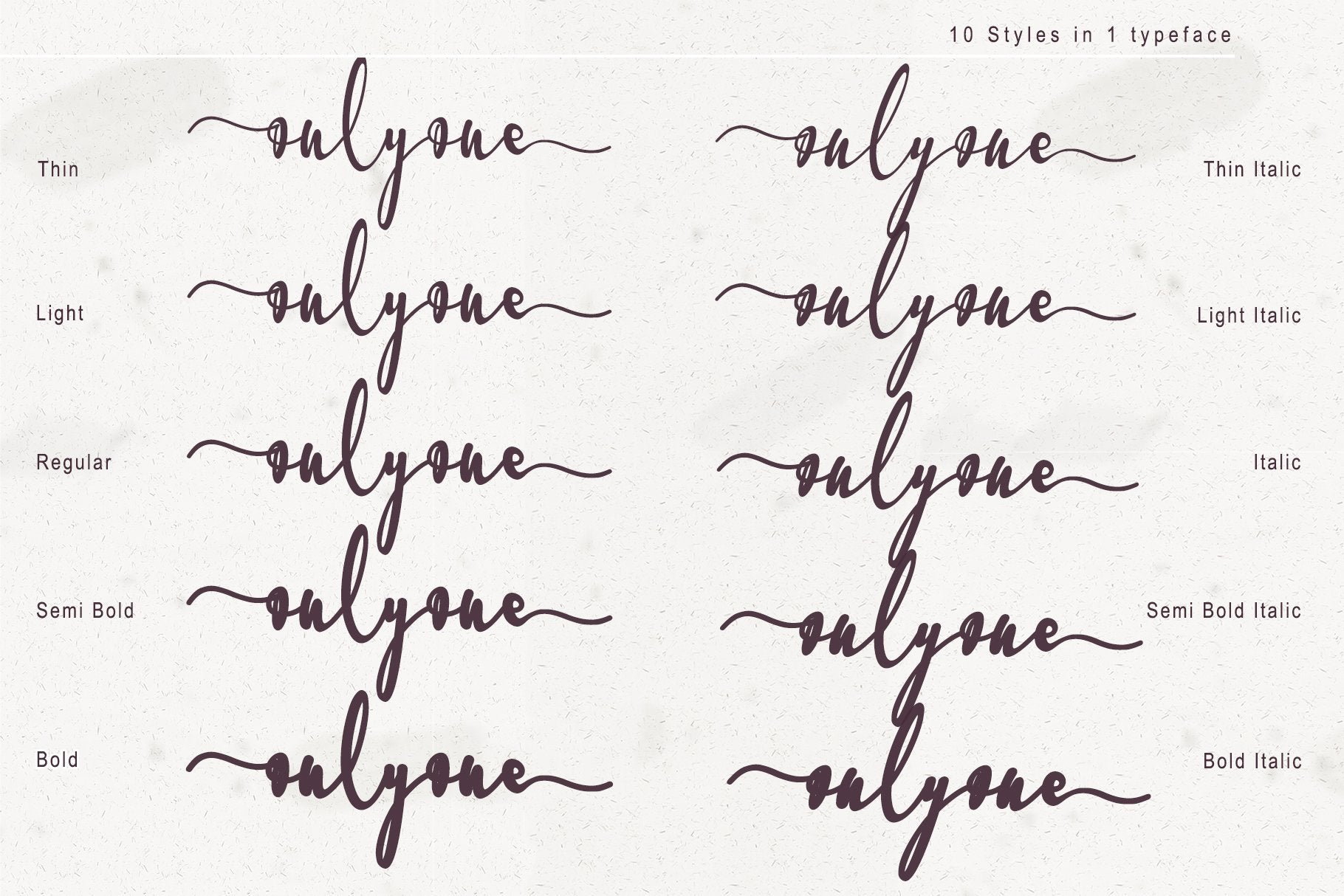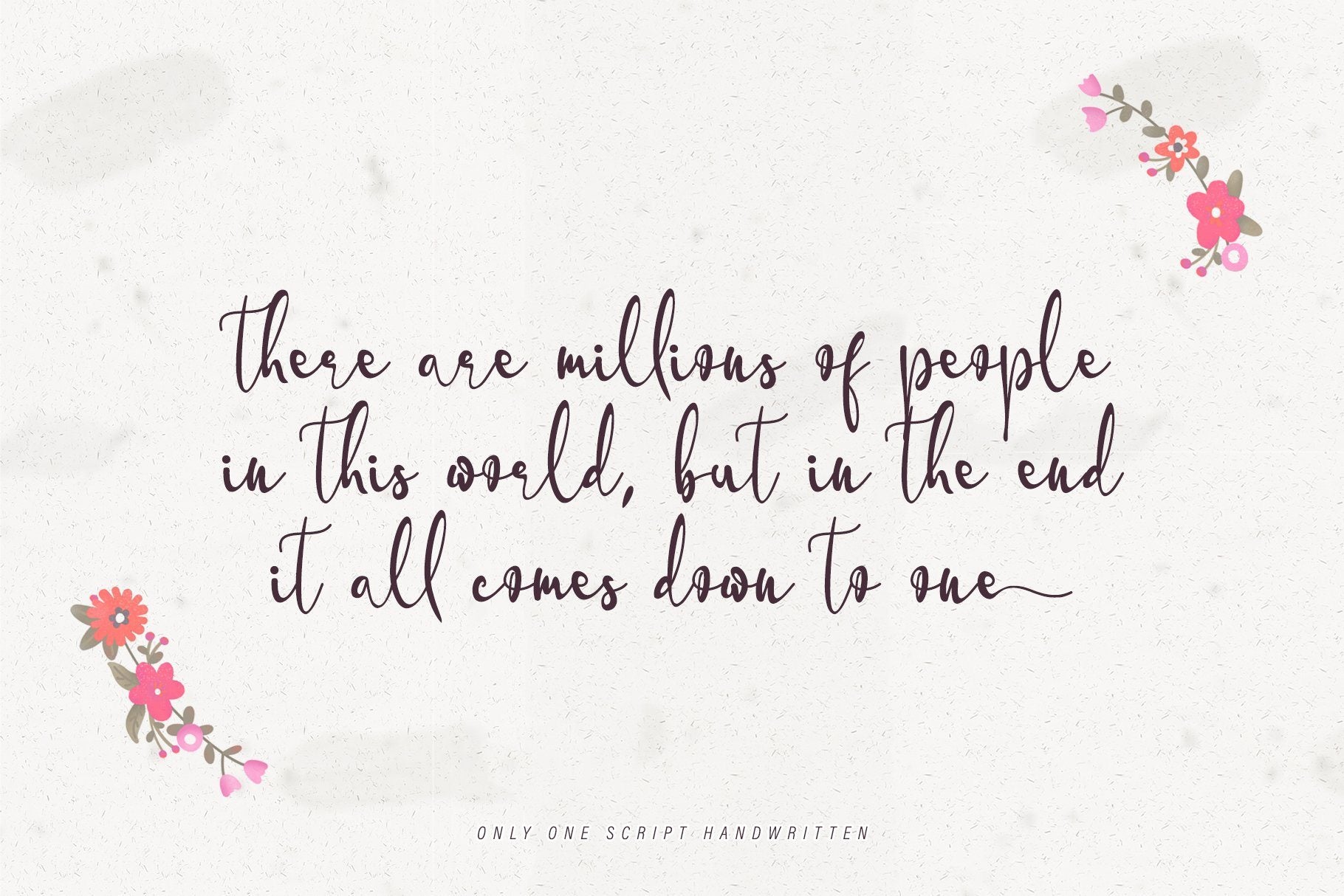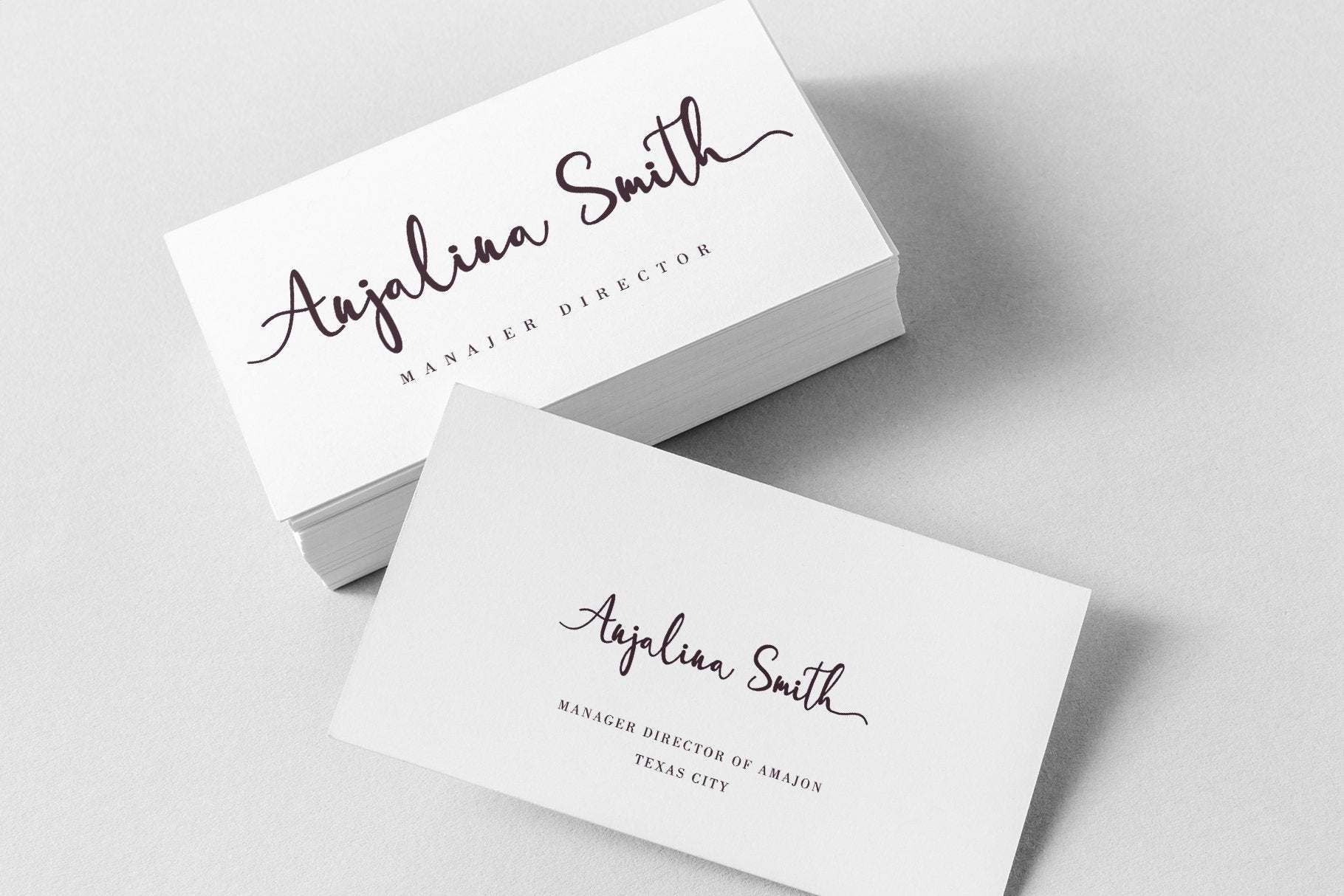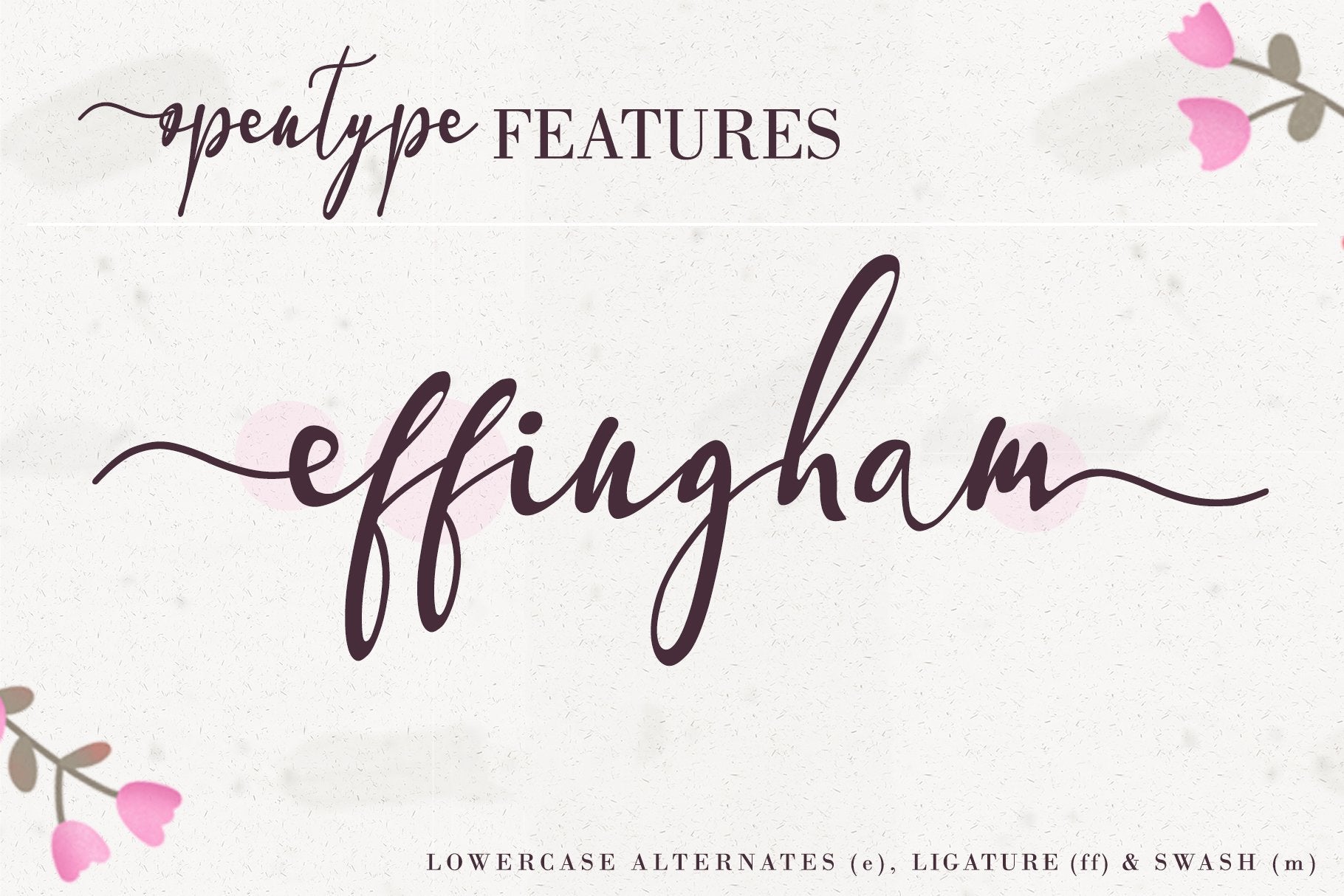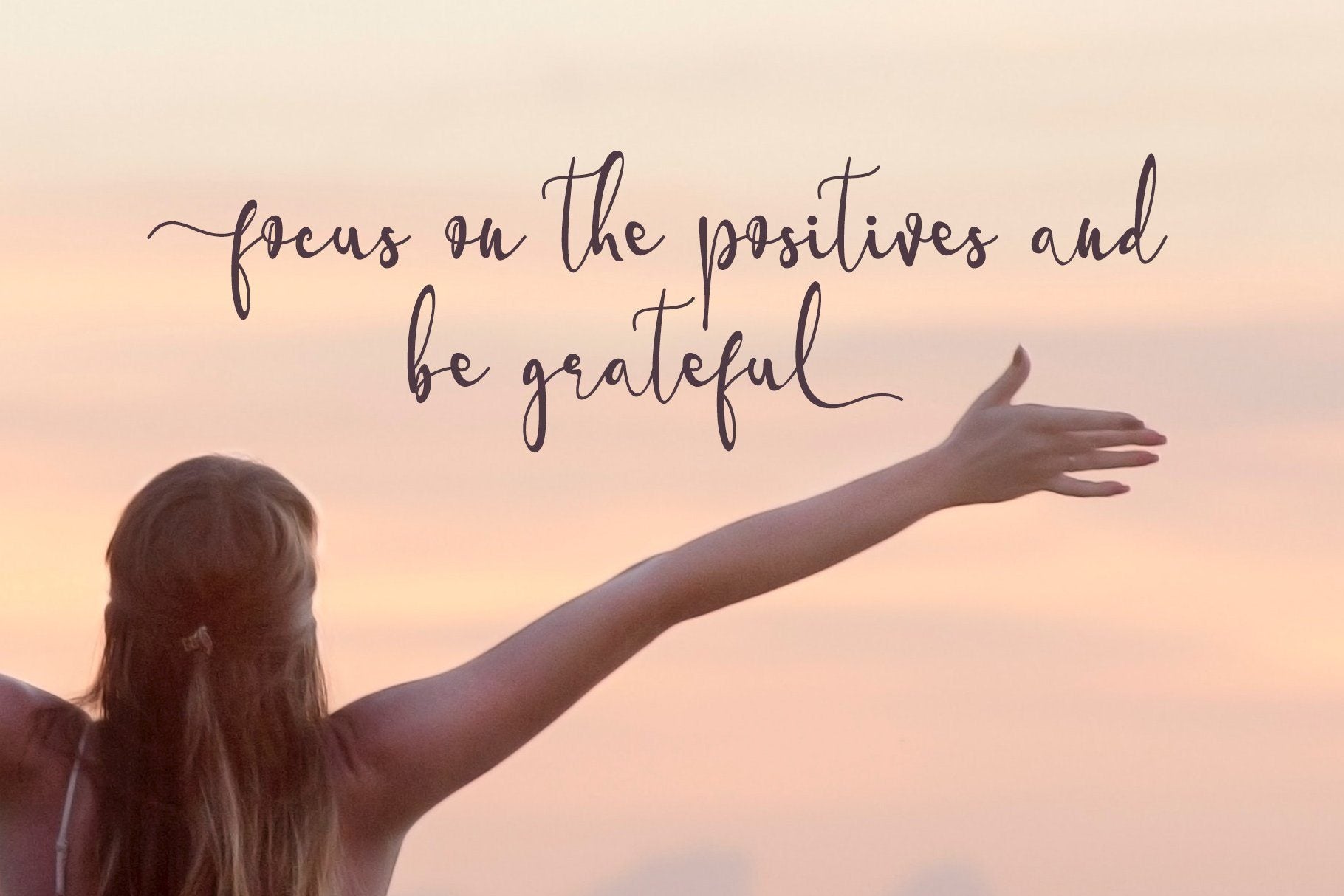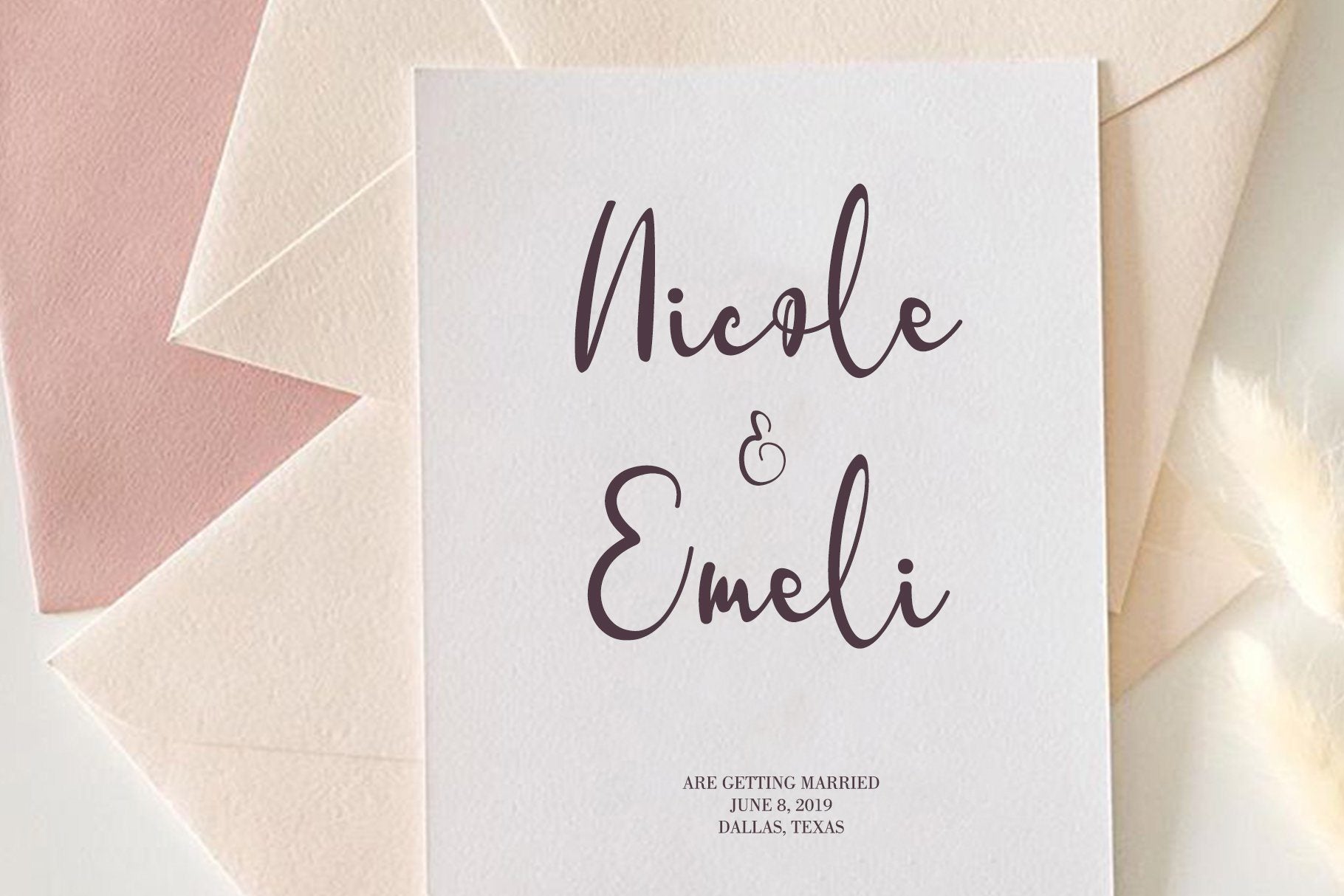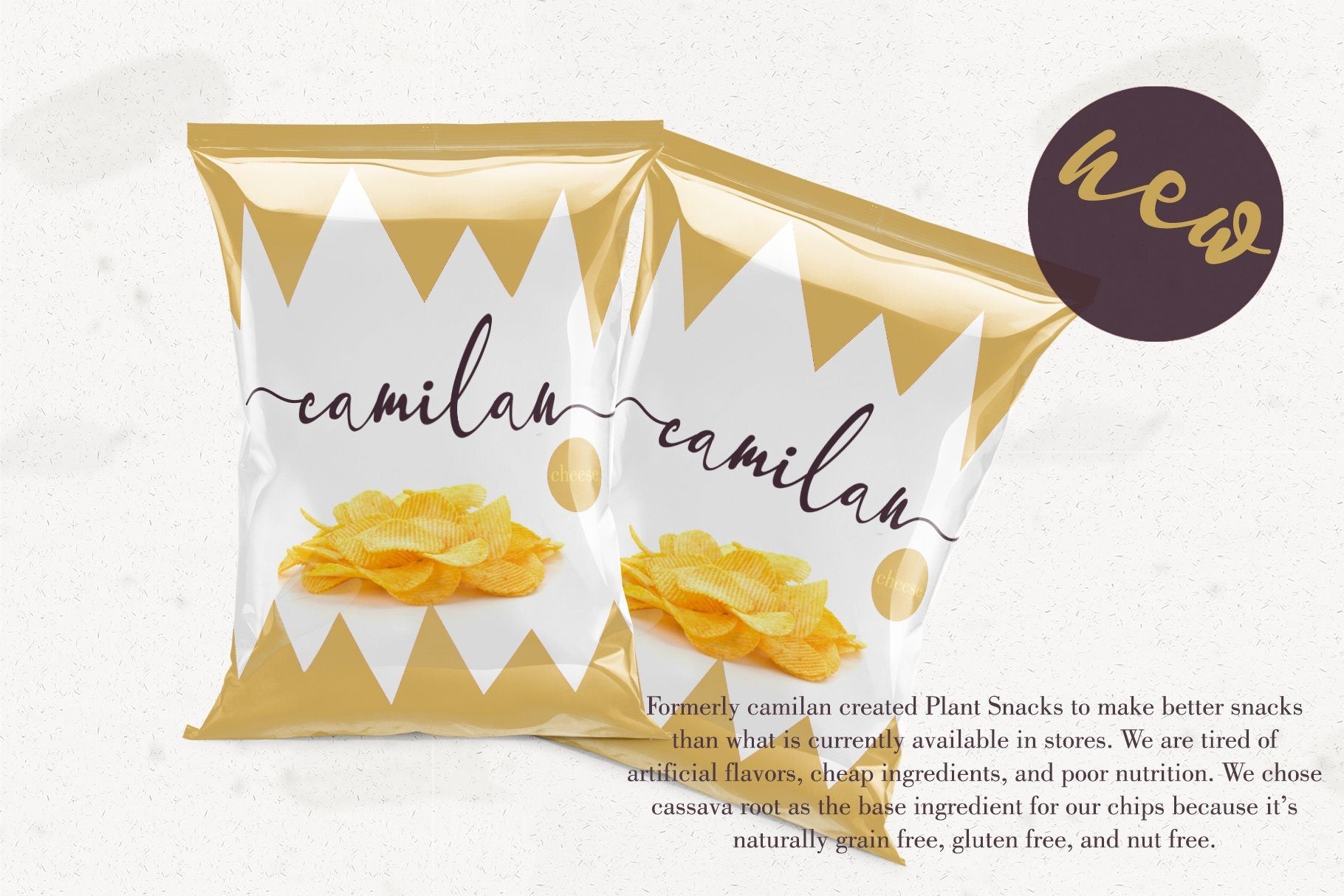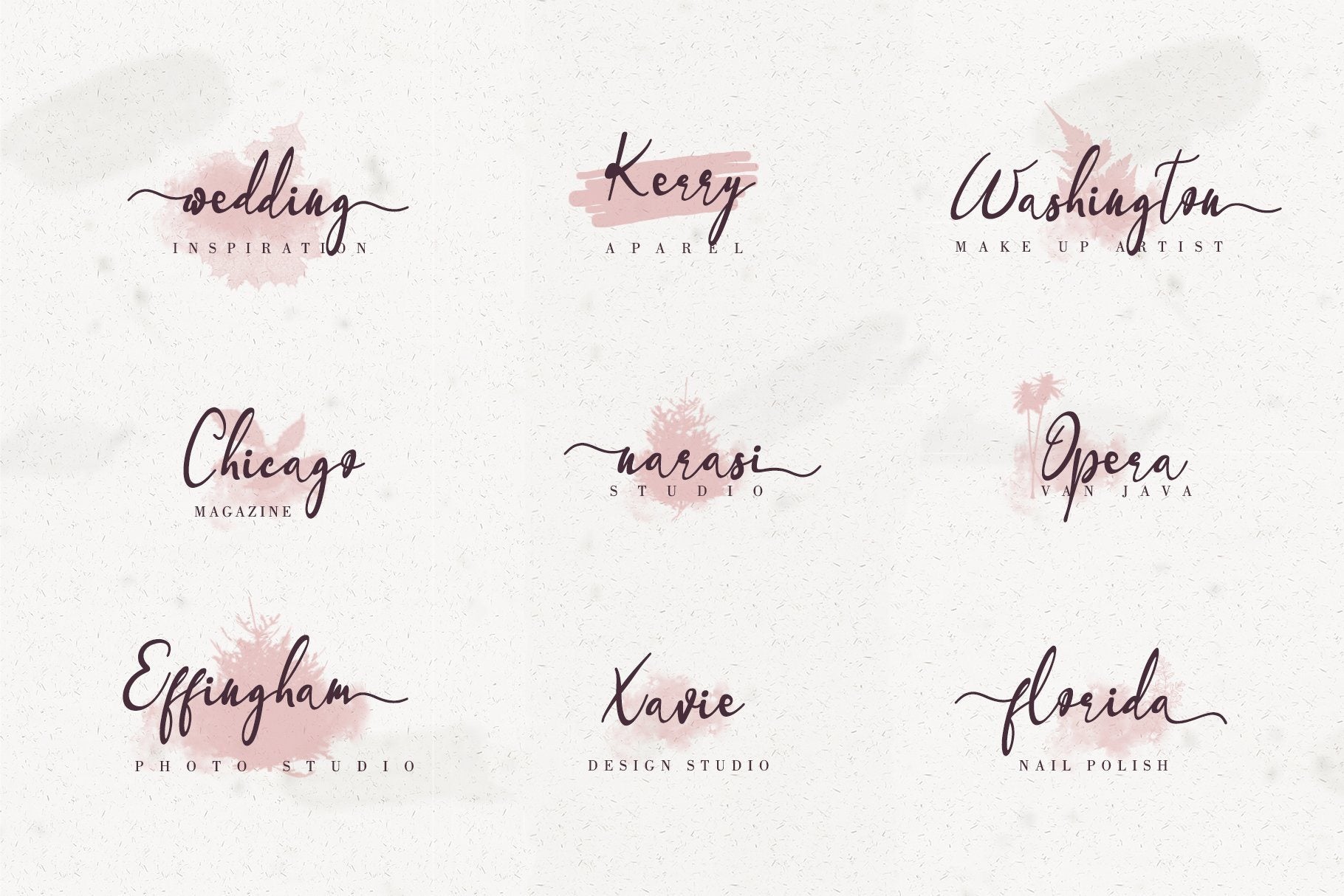
About onlyone
The onlyone is a stylish, unique, handwritten family that is easy to remember. It’s great for unique branding, photo overlays, watermarks, business cards, invitations, wedding, photography, fashion, etc. This font is available in 10 fonts in 1 typefaces : Thin, Light, Regular, Semi Bold, Bold, Thin Italic, Light Italic, Semi Bold Italic, Bold Italic and most importantly, Onlyone is perfect for you. Onlyone.ttf Onlyone.otf Onlyone Thin.ttf Onlyone Thin.otf Onlyone Thin Italic.ttf Onlyone Thin Italic.otf Onlyone Semi Bold.ttf Onlyone Semi Bold.otf Onlyone Semi Bold Italic.ttf Onlyone Semi Bold Italic.otf Onlyone Light.ttf Onlyone Light.otf Onlyone Light Italic.ttf Onlyone Light Italic.otf Onlyone Italic.ttf Onlyone Italic.otf Onlyone Bold.ttf Onlyone Bold.otf Onlyone Bold Italic.ttf Onlyone Bold Italic.otf Our other products : BEST SELLER BLACK PINK SIGNATURE ANDORA BRIGITTA SANTERIA HEANFFE GALGADOT EIFFEL IN LOVE ( FONT TRIO) SUMMER CHERRY BLACK PINK SUMMER ALLELUYA HONG KONG ANGEL MALEFICENT California Street ART MARIA BESTOWENS FAMILY